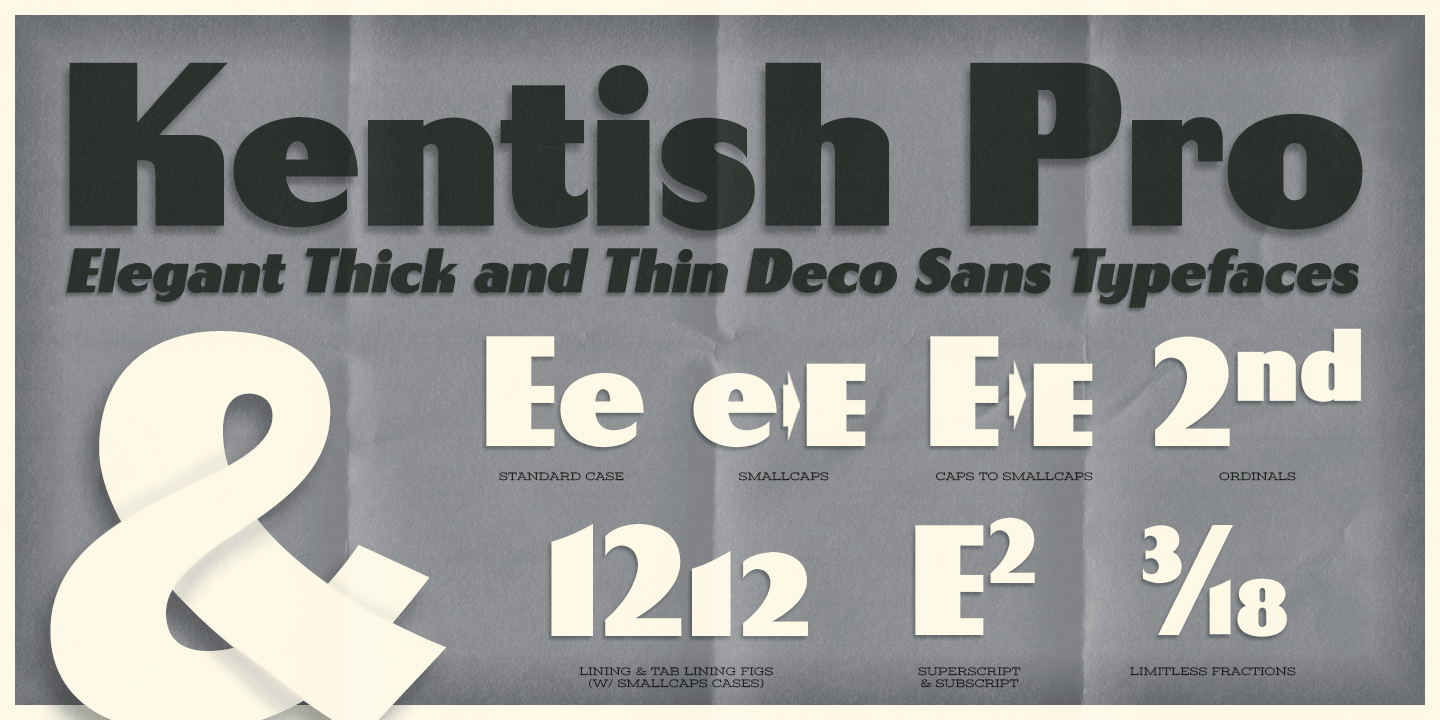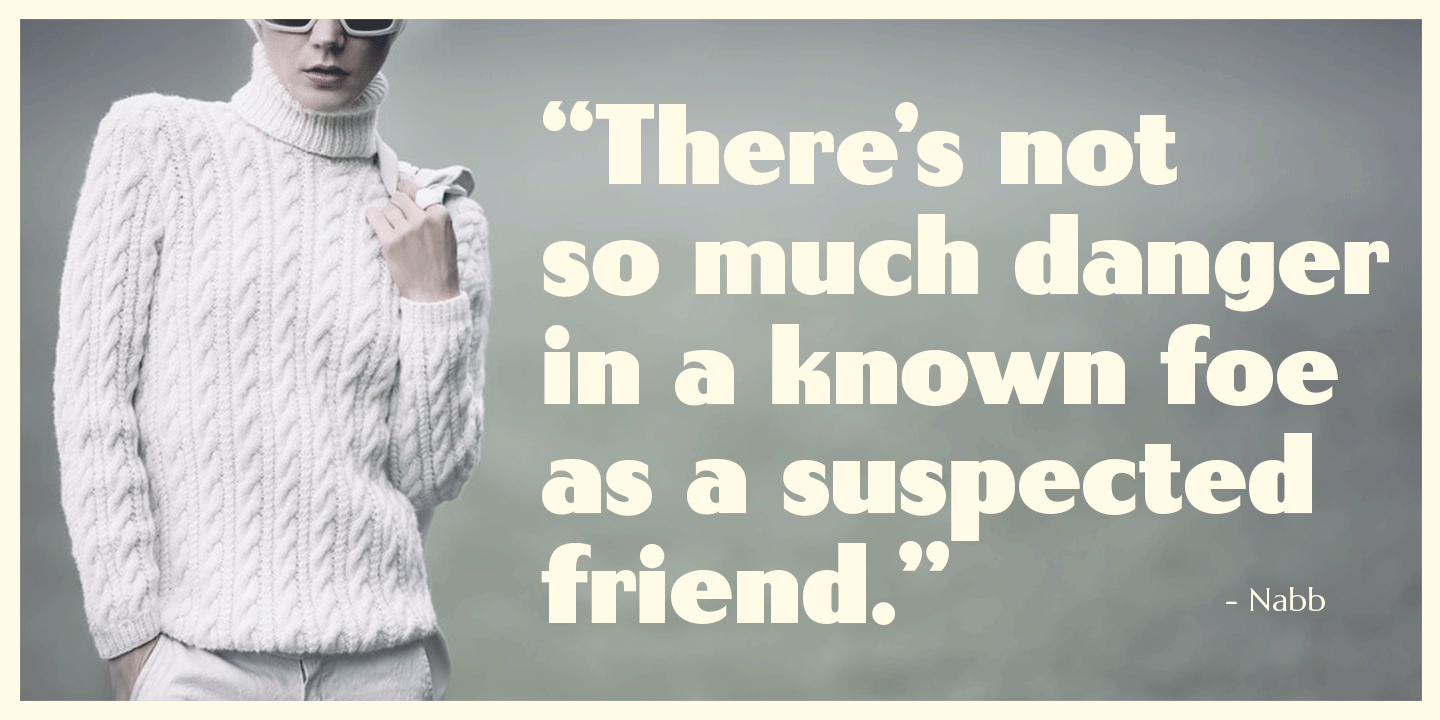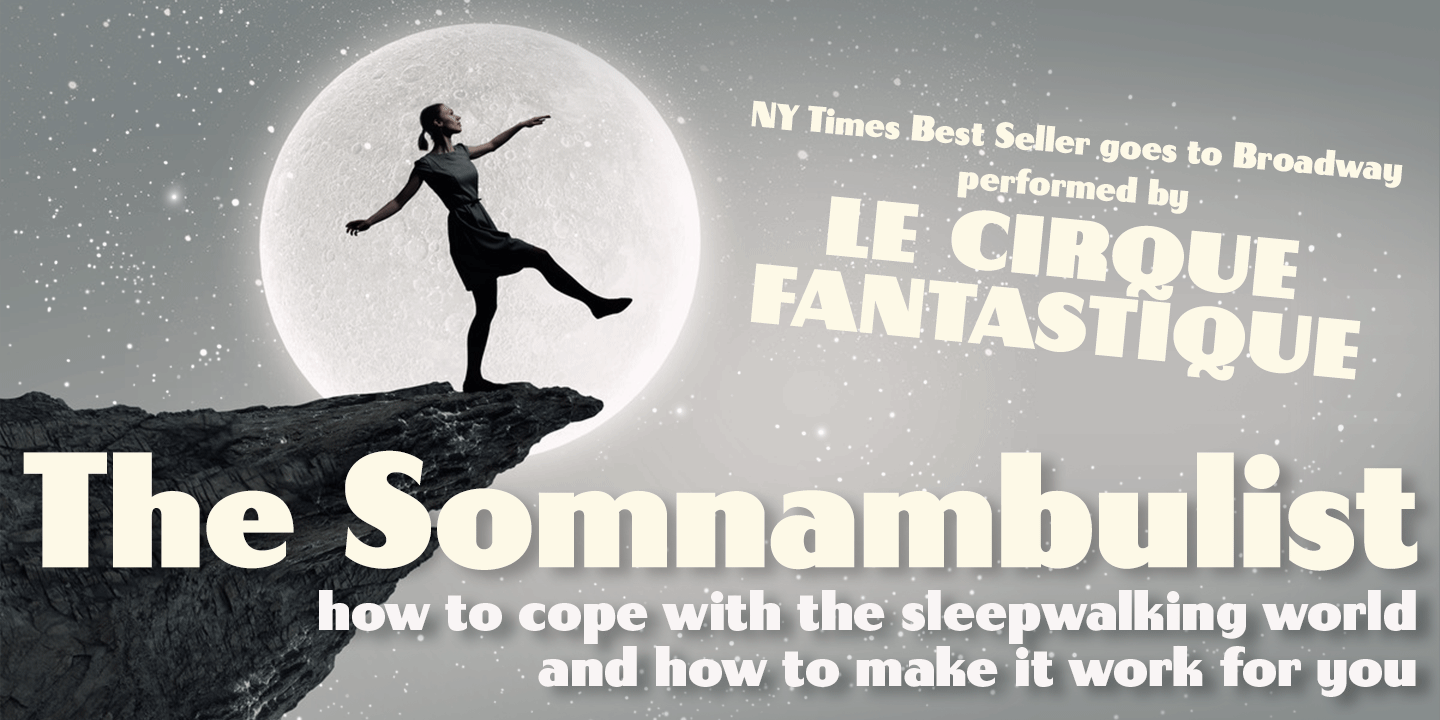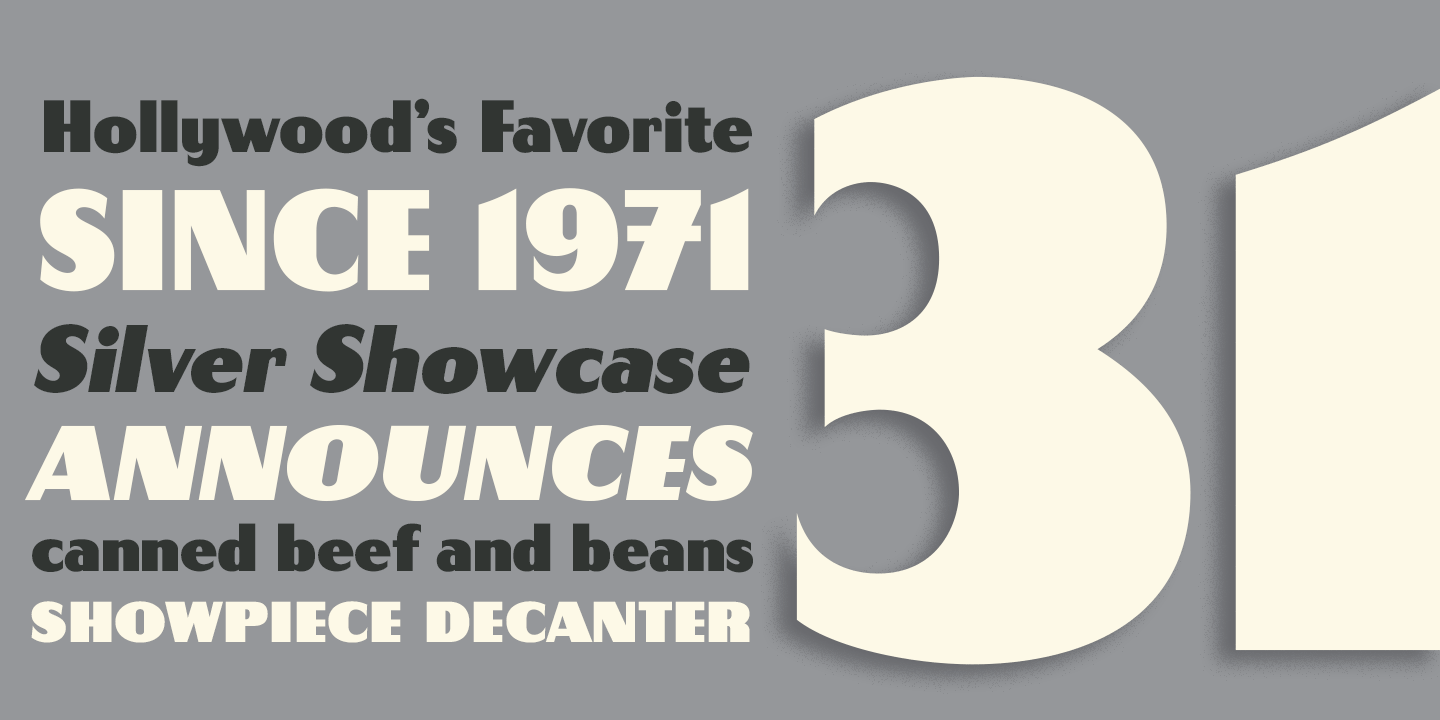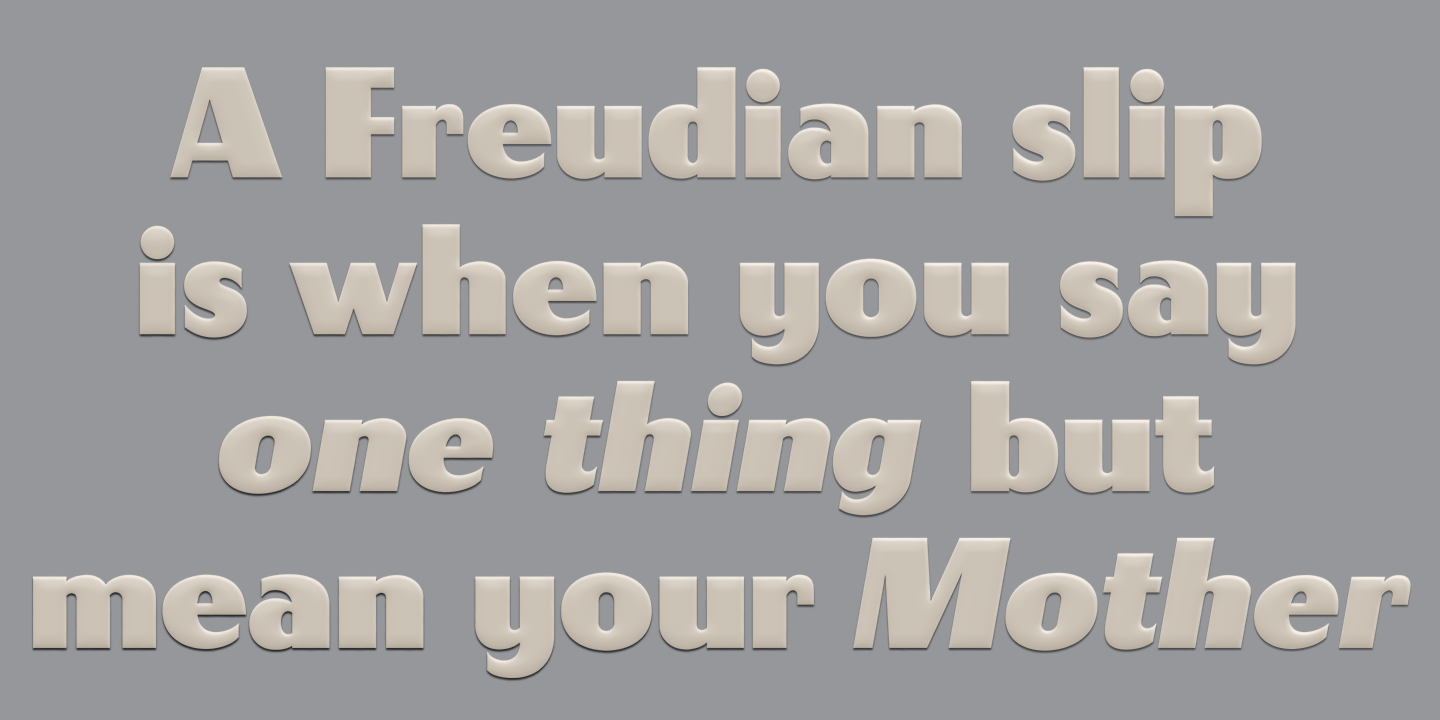
Kentish AOE Pro
Font Family by Astigmatic One Eye
An elegant pairing of thick and thin sans-serif upright and italic types, Kentish AOE Pro's letterforms walk a line between deco style and vintage wood types.
Originating as a revival and elaboration of a limited lettering specimen from a series of old loose spanish specimen book pages. What began as just Capitals, Lowercase and Numerals was expanded to a rich pro glyphset including punctuation, small caps, small caps scaled figures, unlimited fractionals, superiors & inferiors, ordinals, tabular & proportional figures, and an expanded language glyph set.
From historical harkenings to modern letterpress, book covers, headlines, or anything else you want to give a dash of indescribable authenticity to, Kentish AOE Pro is here to fill your need with Regular & Italic styles bundled together at a single price.